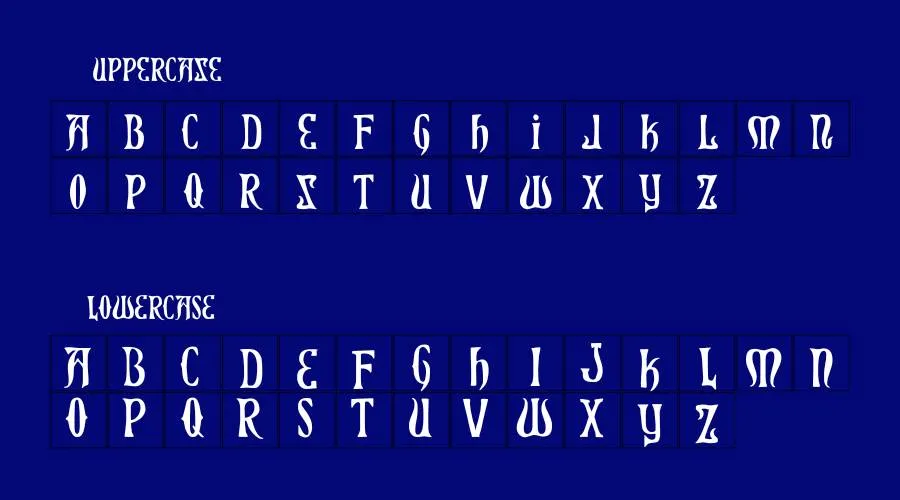
About Xiphos Font
Xiphos Font is designed by Iconian Fonts it is a fancy font. The typeface can be a tremendous choice for any venture that needs a feel of elegance.
Despite its inflexible strokes and powerful series, is a strong character. When enlarged, it is beautiful and easy to read. There are plenty of patterns in smaller sizes. The typeface is ideal for branding, books, and posters that need a sharp, elegant tone. This font is very close to the spit curl font.